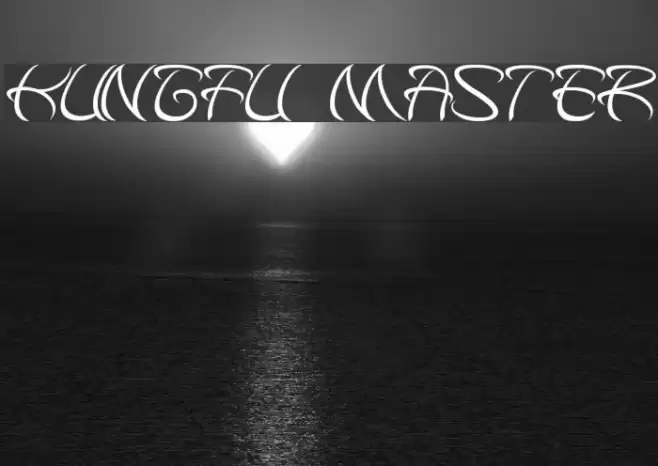
kungfu master Font
kungfu master Description
This font features a dynamic and energetic style, characterized by its sweeping curves and sharp, pointed edges. The letters exhibit a sense of motion and fluidity, reminiscent of brush strokes or calligraphy. Each character is uniquely crafted with an emphasis on bold, flowing lines that create a sense of rhythm and movement. The uppercase and lowercase letters maintain a consistent style, with the uppercase being slightly more pronounced. The overall design is both artistic and modern, making it suitable for projects that require a touch of creativity and flair.
A dynamic, brush-style font with sweeping curves and sharp edges from Uncategorized fonts.
- Proposed Projects: Ideal for martial arts branding, dynamic posters, creative logos, and artistic designs.
- Overall Style: Modern, Artistic
- Use Case: Logos, Posters, Creative Titles